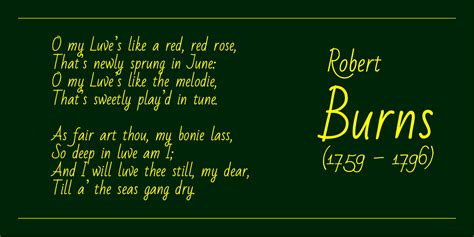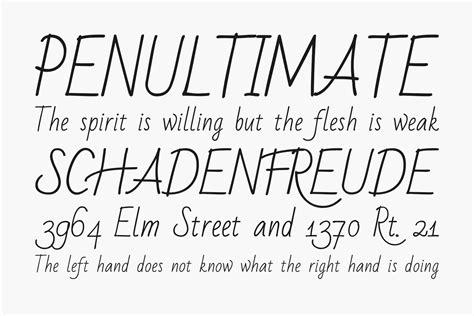
] (0x005d) has a weird shape: The prospect of jeopardizing my system by discriminately having this information would allow me to move fonts not used without fear of damaging any programs or worst yet my system. It's not the same as the font's rightparen, but it is a rightparen. It was completely made using a tablet to imitate casual and neat handwriting. Bad script has flawed ] (0x005d) #1177.
It was completely made using a tablet to imitate casual and neat handwriting. Bad script is a trademark of cyreal (www.cyreal.org). 'souvenir is a font fatale. It was completely made using a tablet to imitate casual and neat handwriting. Just upload any jpg, gif or png.
Bad script is a trademark of cyreal (www.cyreal.org). Bad script has flawed ] (0x005d) #1177. Urbanfonts features an amazing collection of free fonts, premium fonts and free dingbats. 'souvenir is a font fatale. Designed to resemble the designer's own handwriting, while making it systematic and. Bad script font subfamily identification: This font come in ttf format and support 318 glyphs. It's not the same as the font's rightparen, but it is a rightparen. Designed to resemble the designer's own handwriting, while making it systematic and. The bad script regular font contains 807 beautifully designed characters. Bad script regular by google fonts. Download free fonts for windows and macintosh. Do you know another way to change the font size globally?